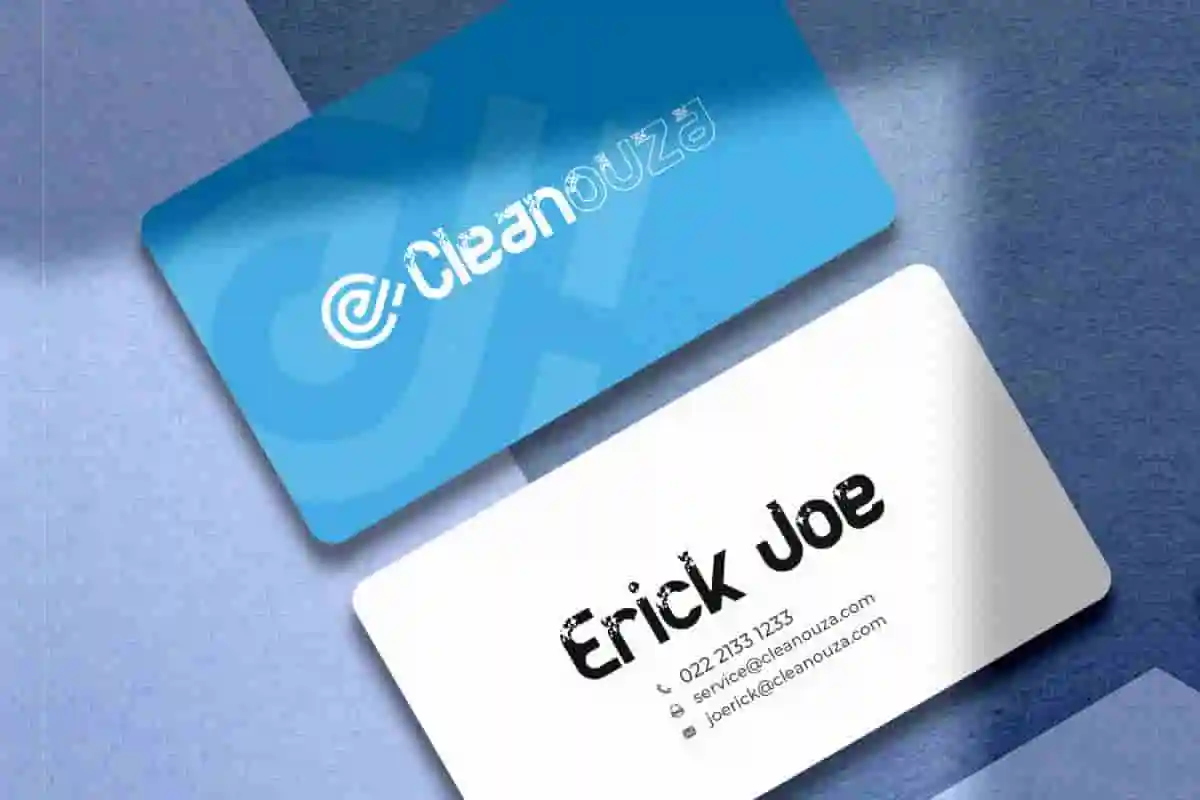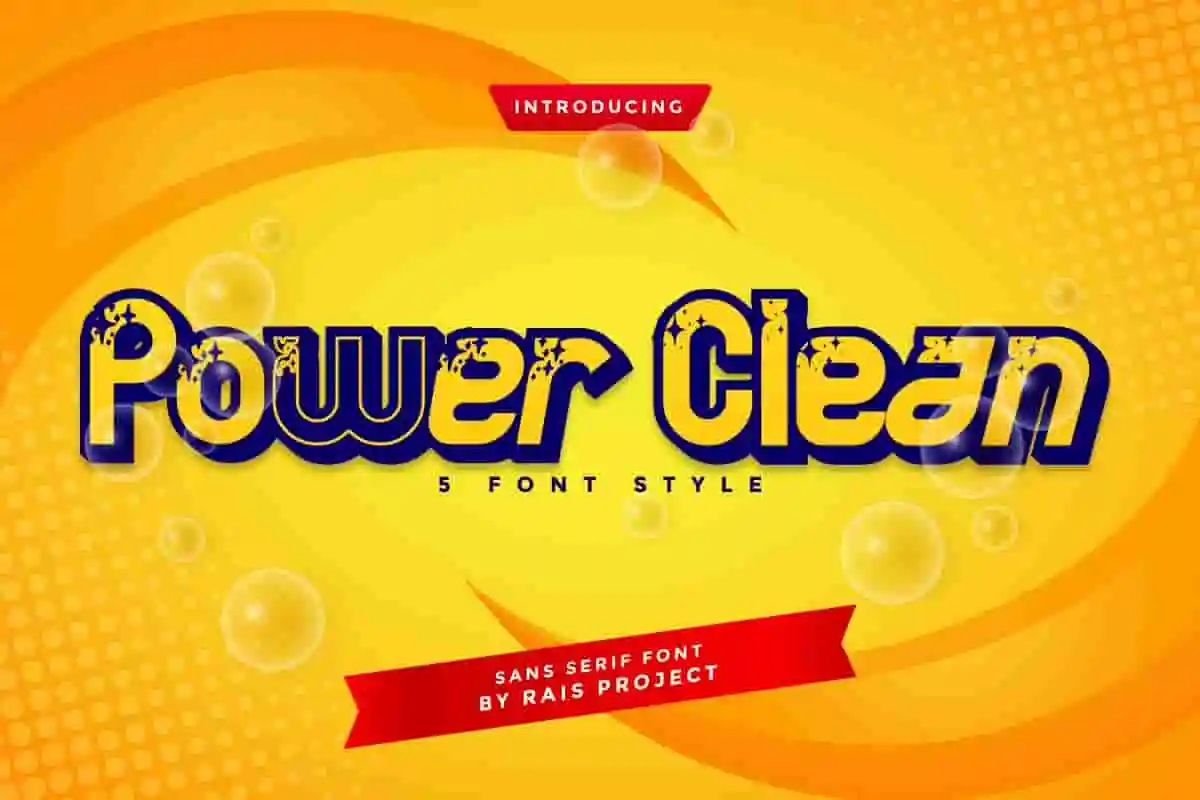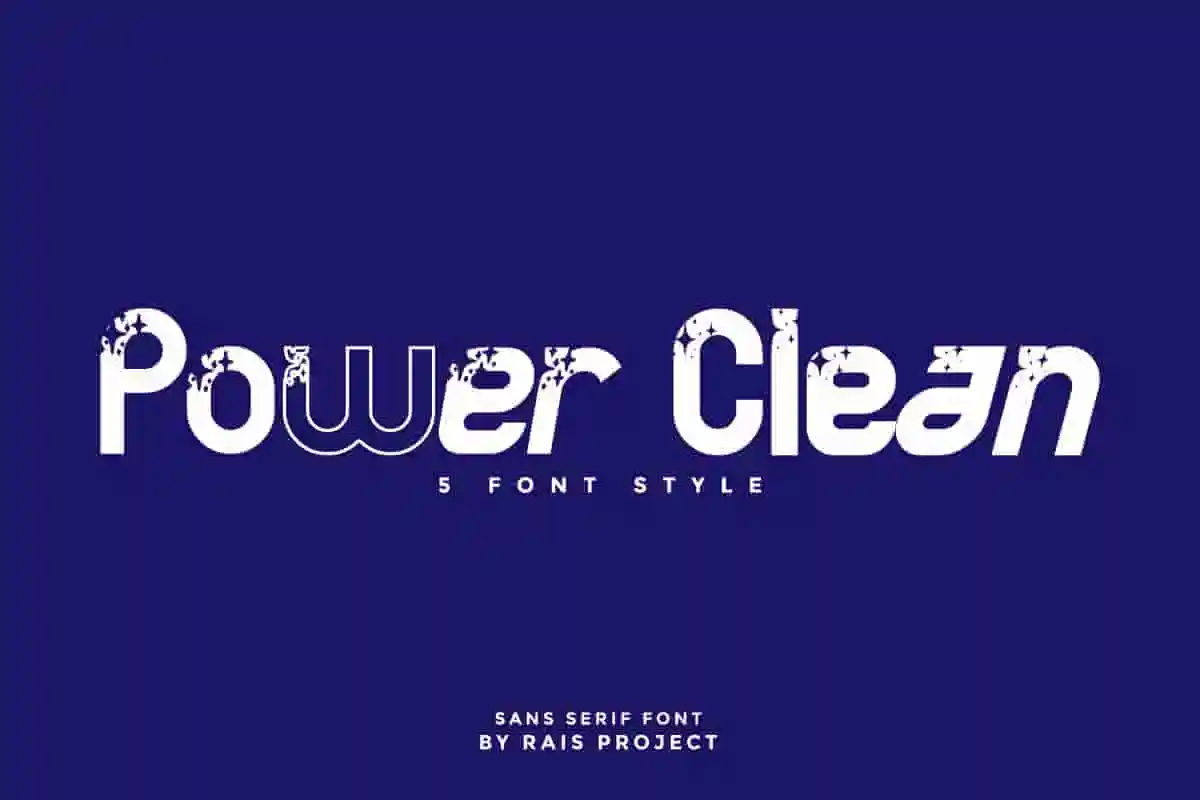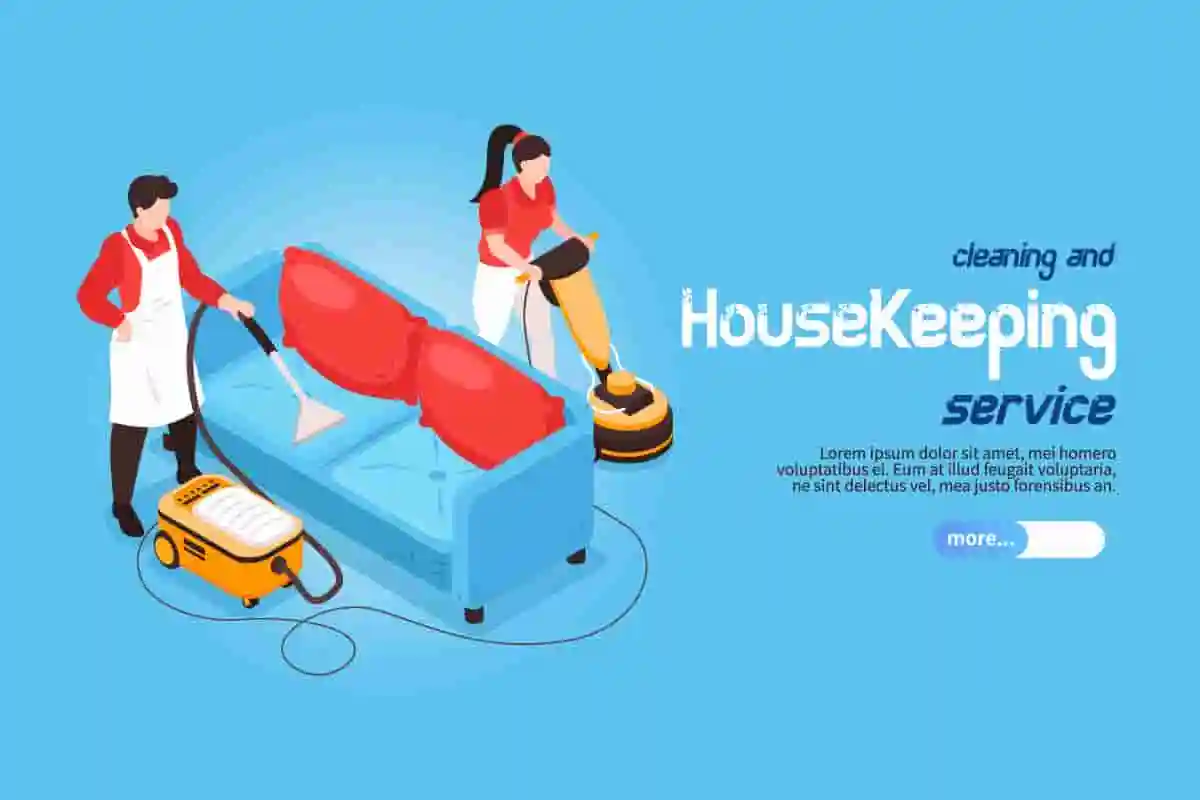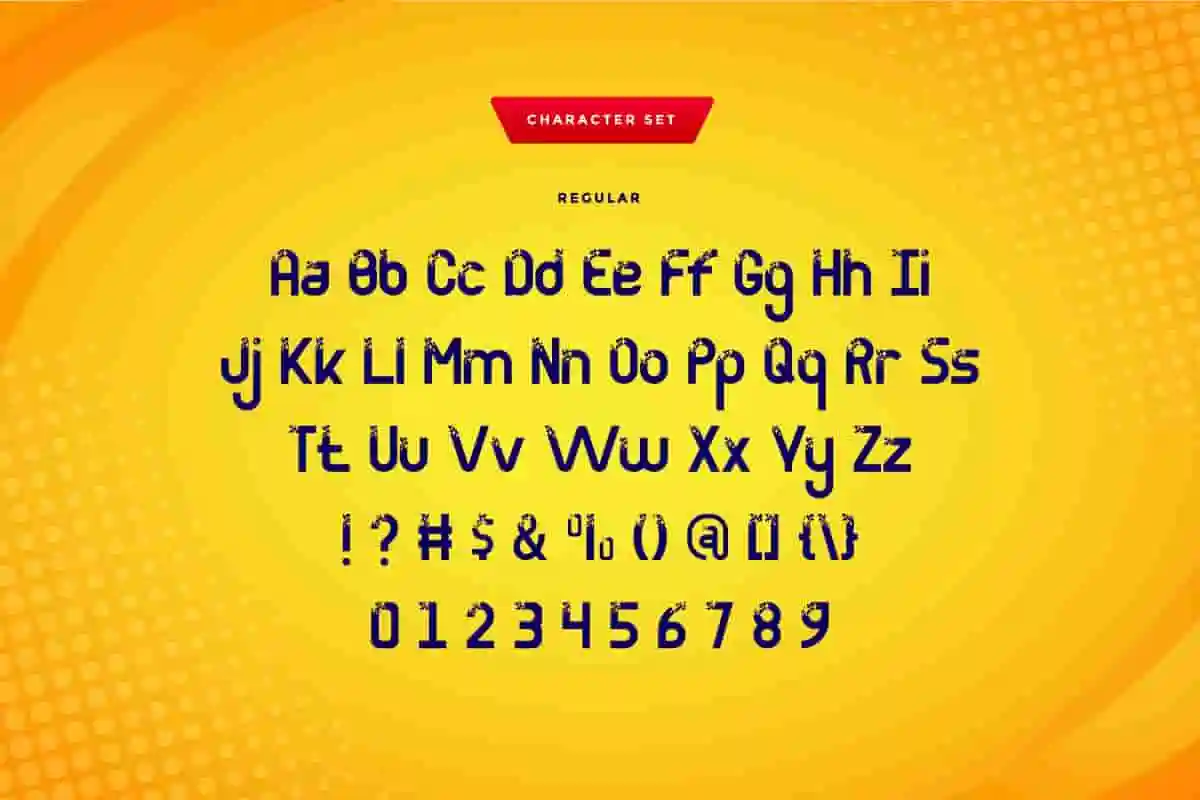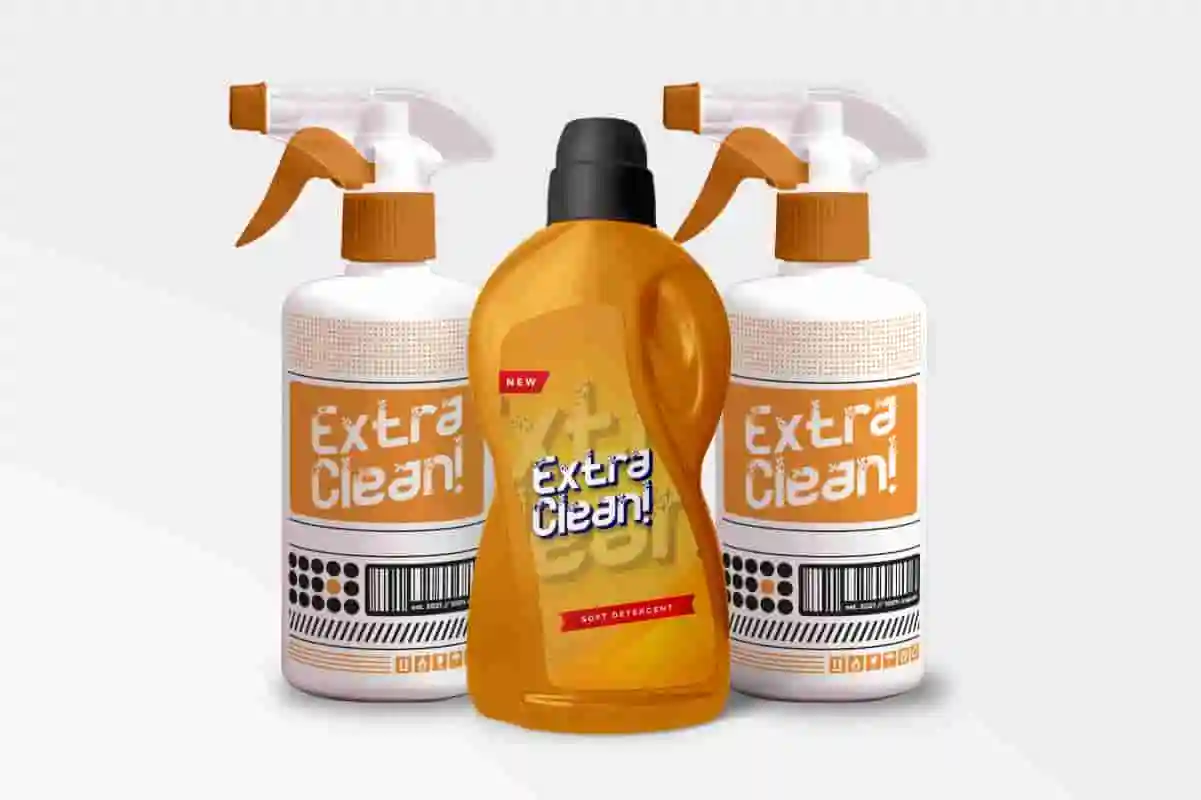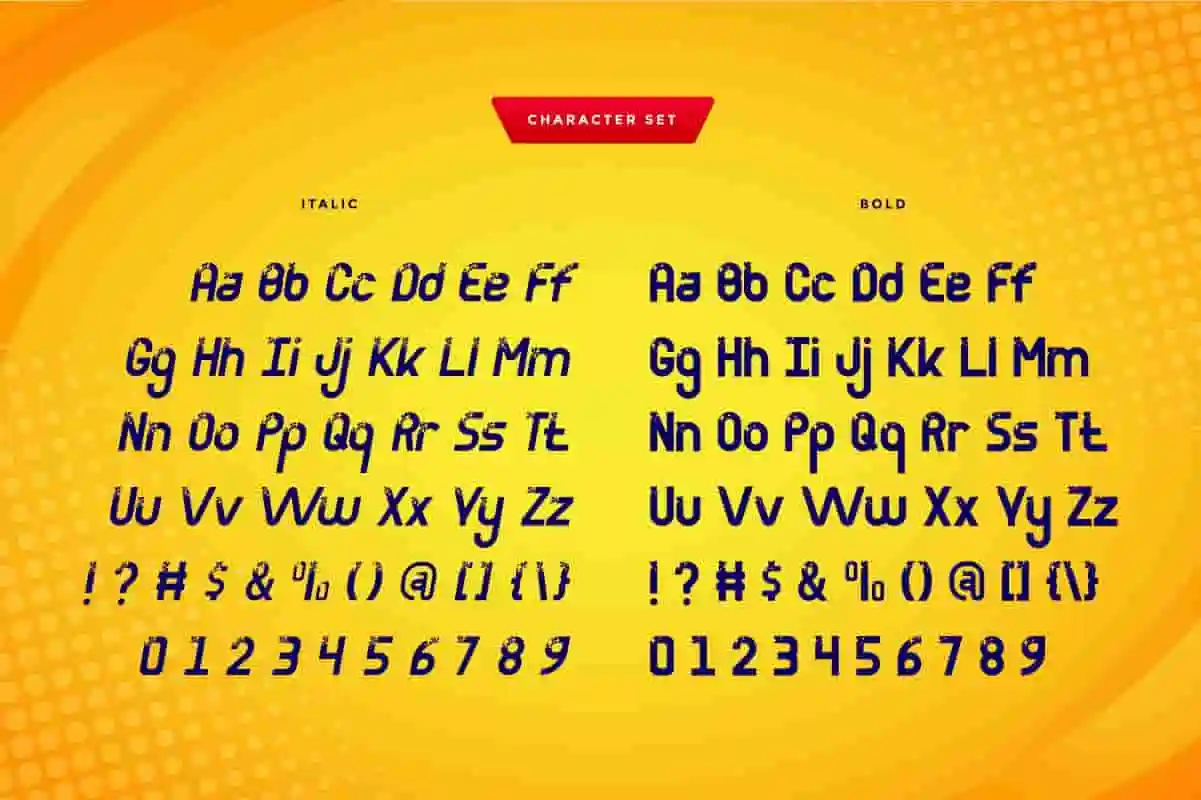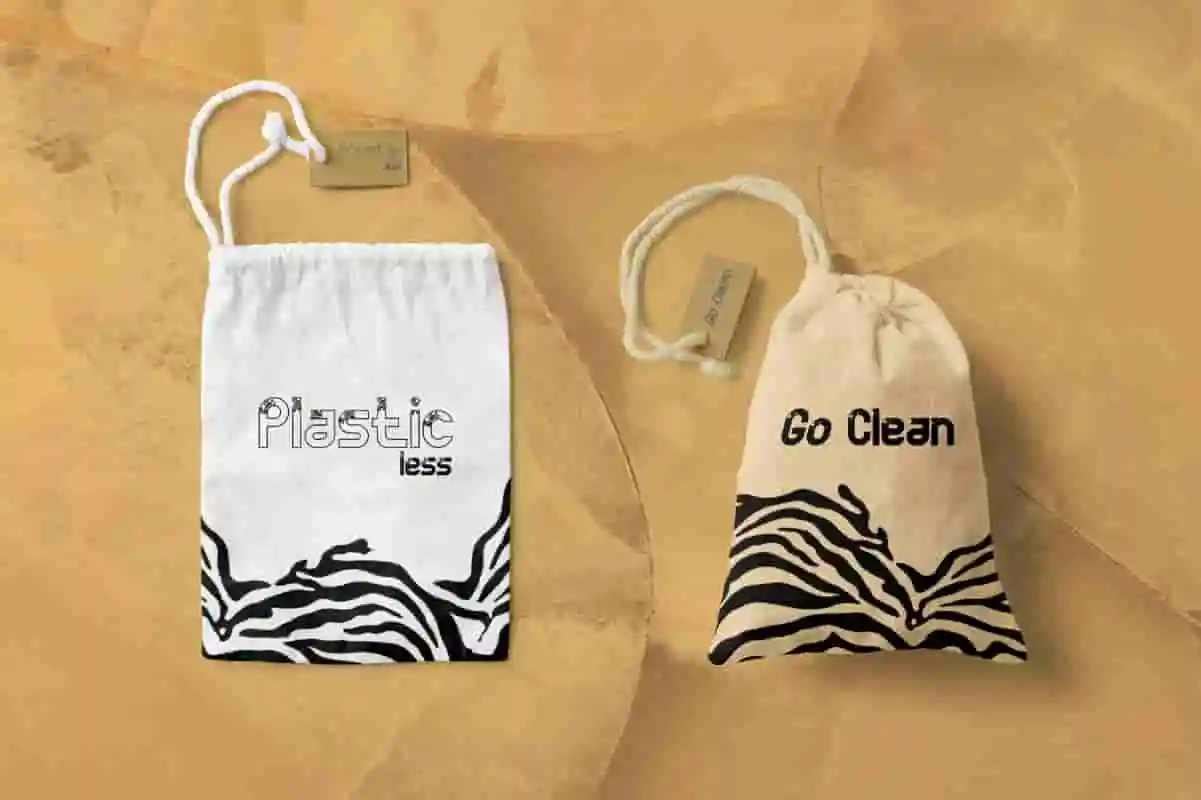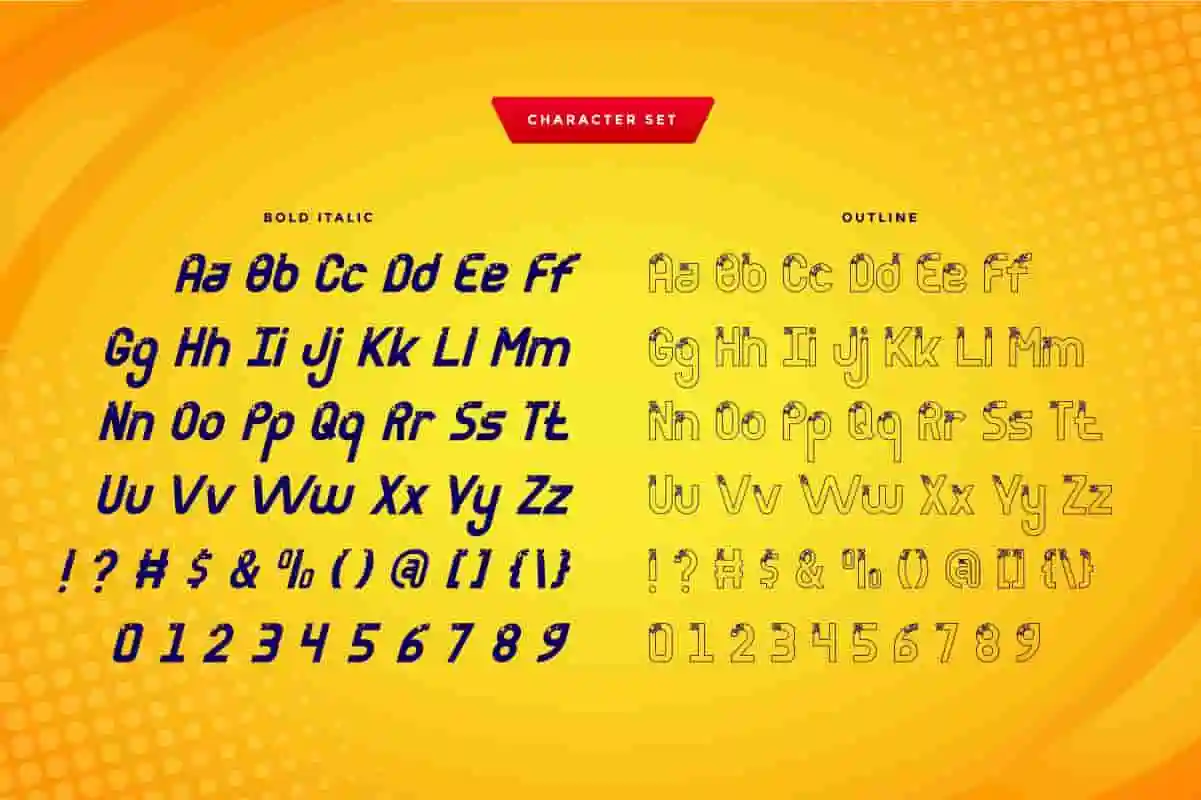
Power Clean Display Font
Power Clean Font is a display decorative sans serif font by RaisProject. It will be great for brandings, flyer, Invitation, promotion, events, advertising etc
Power Clean Font handcrafted With simple characters,Power Clean display Font includes full set of cool uppercase and lowercase letters, numerals, a large range of punctuation and ligatures. All letters has hand-lettered style to make it unique yet cool looking design. The font comes with five style options : regular, bold, bold-italic, outline and italic. On the package You will get: